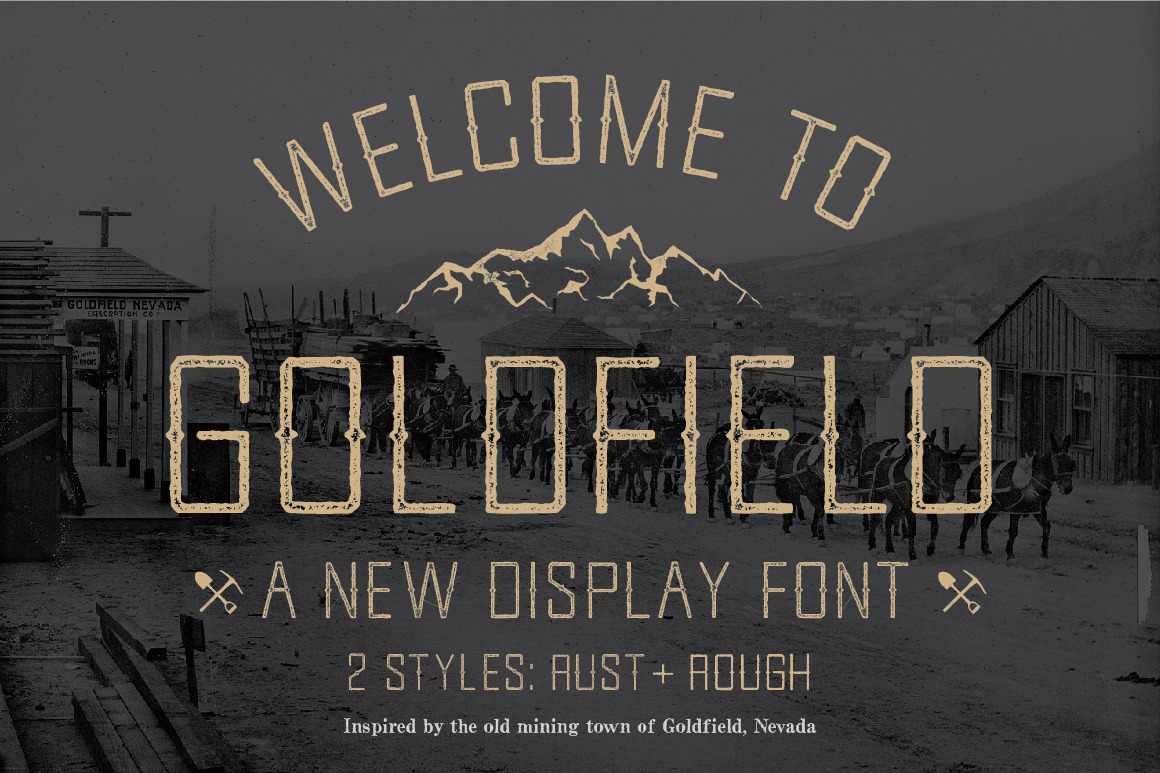
Goldfield Rust + Rough Font
This font family release is inspired by the semi-abandoned ghost town of Goldfield, Nevada. This weathered font is reminiscent of the old metal stamped plates you might find on the sides of old mining equipment that has long since seen any use.
GOLDFIELD ROUGH (which has a rough outline) and GOLDFIELD RUST (which has the same rough outline as well as being distressed) are supplied in both .OTF and .TTF versions. Each font has upper and lower case as well as numbers and special characters. I expanded this family for multi-lingual support so If I have missed anything please let me know.